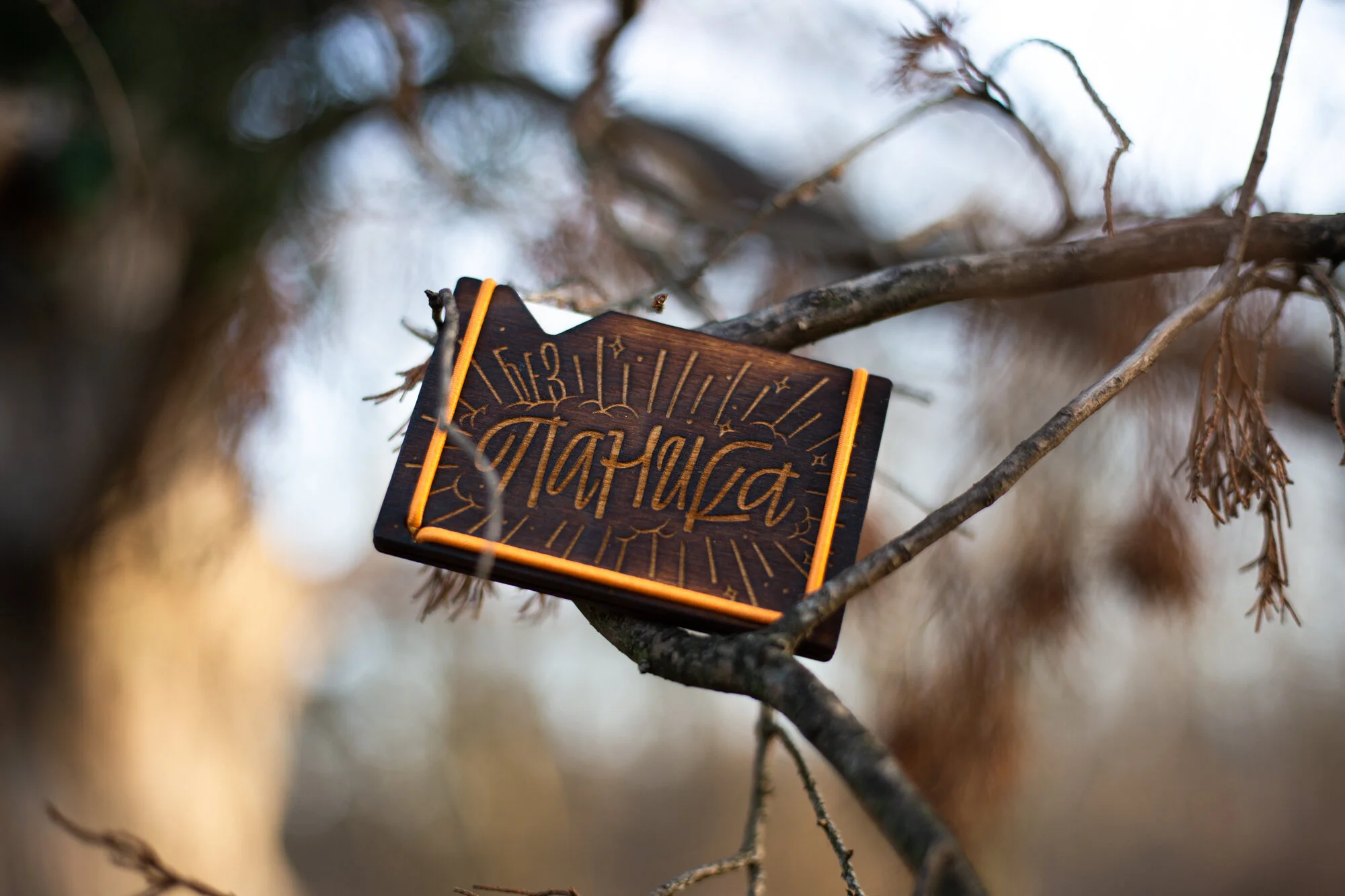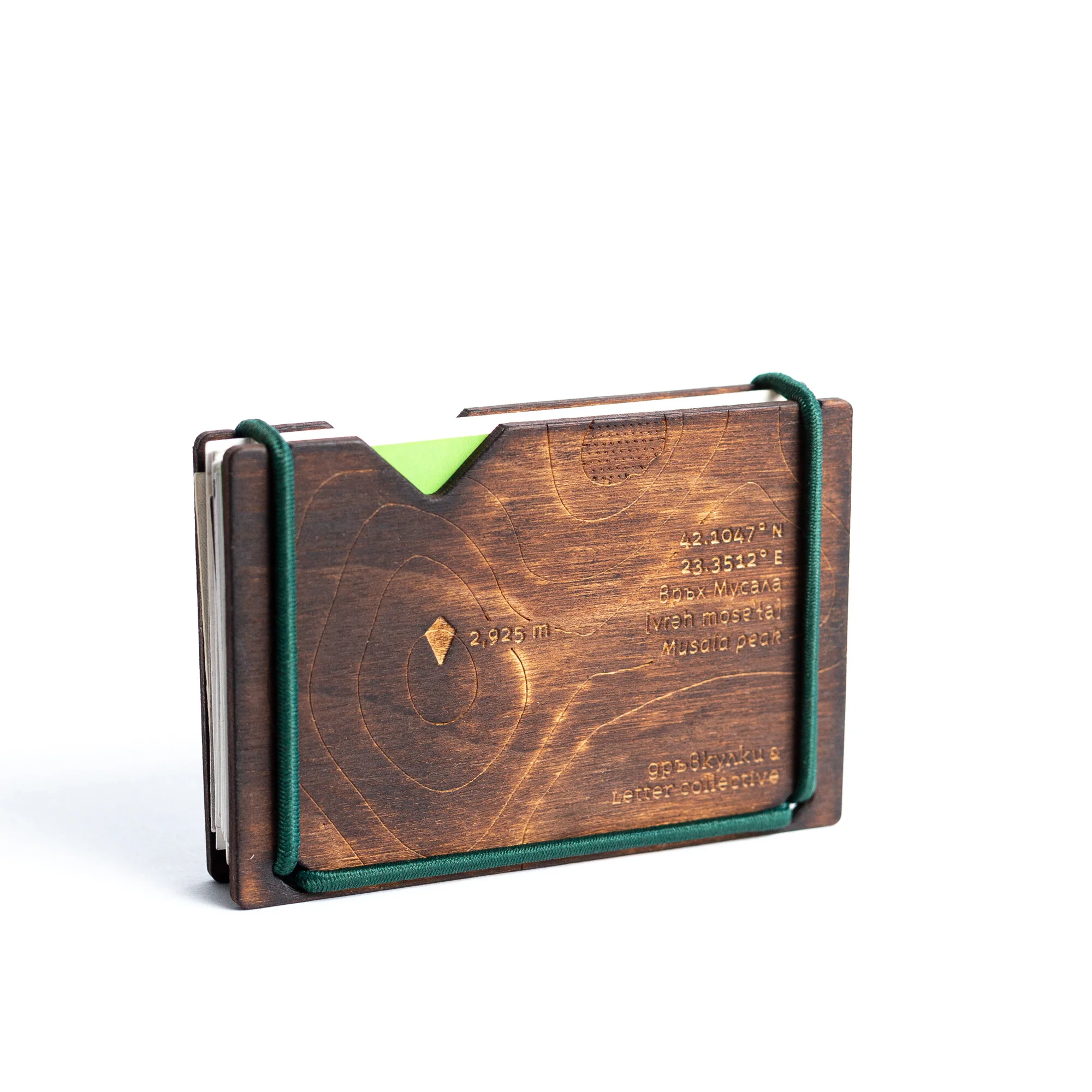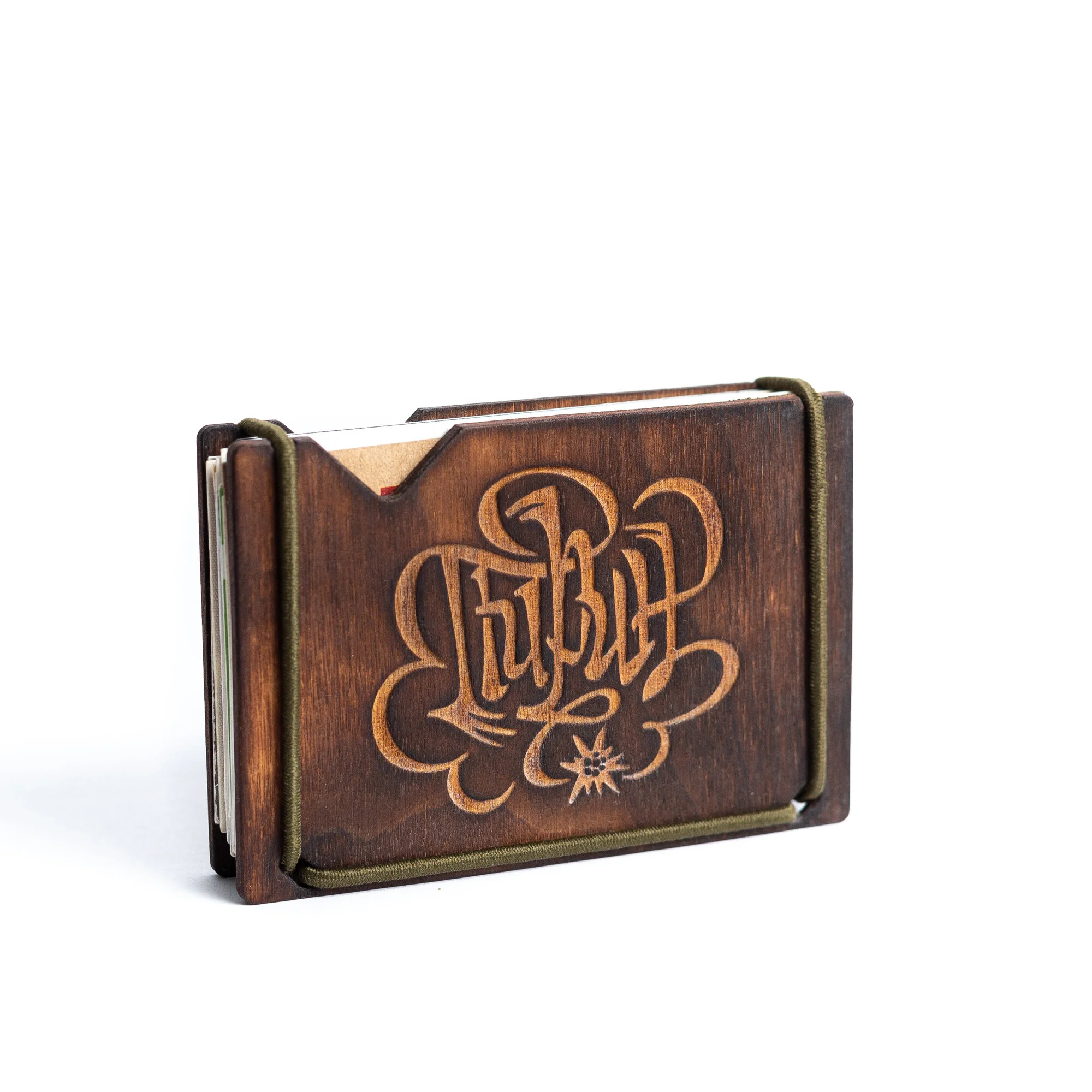
Staying sane
This awesome brand is run by an even awesome lady who designs, prototypes, and manufactures these super cool accessories made out of plywood. She approached us with the proposal to collaborate on a limited edition series of her cardholders – compact and minimal substitutes for a conventional wallet with engraved fronts and backs. Needless to say, we were instantly on board with the idea.
The first series is strongly influenced by the pandemic and the need to lift our spirits in any way possible. Together we came up with a few inspiring words each of which aims to serve as a motivational message every time you look at the cardholder. The lettering pieces we worked on depict the concepts of FREEDOM, BALANCE, PATIENCE, and DON'T PANIC. These are intended for sale in Bulgaria, so the designs are written in Cyrillic script. For all of you unable to read or understand the engravings, we added transcription and translation of the word on the back.
The second series is somewhat tied to the depiction of Freedom from the first series. Here we started with a design we had already made for our Bezier Club clothing line – PIRIN, а mountain range in southwestern Bulgaria. That started the Bulgarian mountains series and along came RILA, RODOPA, and VITOSHA. All favourite places of ours with Vitosha being the closest to us – a half an hour's drive from the studio. For all of you mountain lovers, we added a topographic map of each of the highest peaks together with transcription and translation of its name.